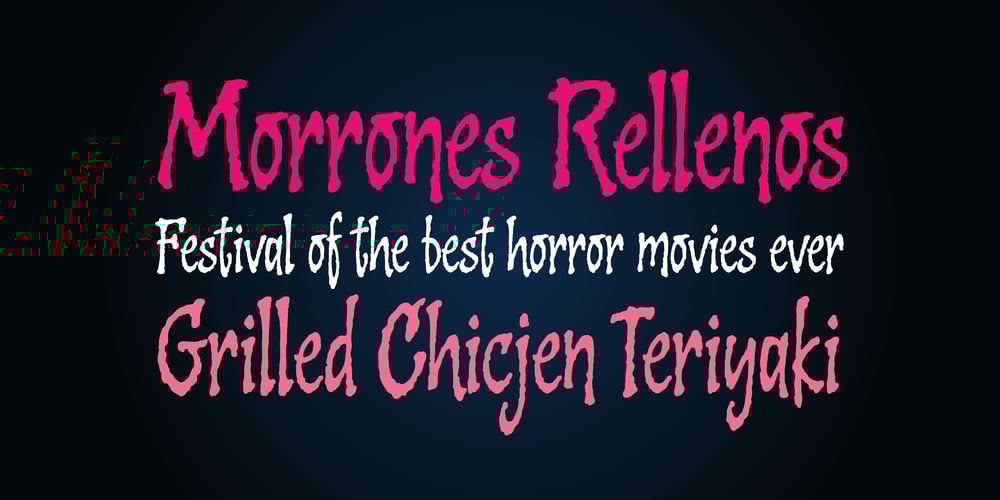
Cooked Font Family was designed by Alejandro Paul, Angel Koziupa and published by Sudtipos. Cooked contains 1 styles and family package options. Koziupa and Paul are just as good in the kitchen as they are on the drawing board. Cooked is their choice offering of stir-fried and juicy alphabet ready to complement any visual stew you can put together. This meaty course, with even meatier OpenType programming, was designed to crank up the volume on the viewer’s senses of smell and taste, and induce drooling at a mere glance. Cooked is just as suitable in packaging as it is on posters, books or music stressing the wild, adventurous and extremely pleasurable side of life. Lot of alternates of each letter are included. Enjoy!